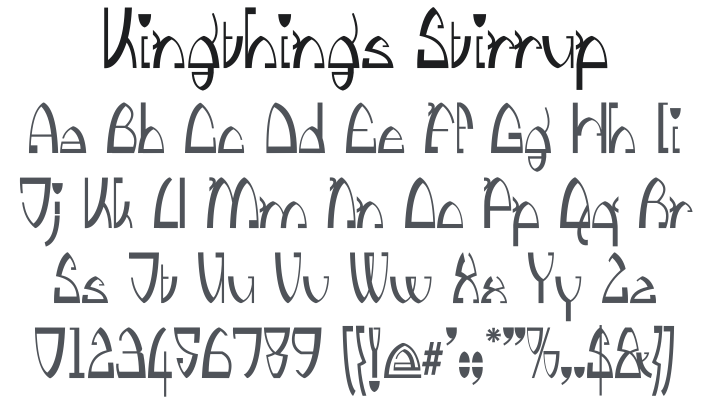
Kingthings Stirrup Font
About Kingthings Stirrup
Detailed work on Tendrylle meant that I needed a break; and as I am mad, the break took the form of another font. Stirrup is built of pre-made shapes, more or less, so it was quite quick to do - oddly, not much work and I really like it! If only it happened more often...